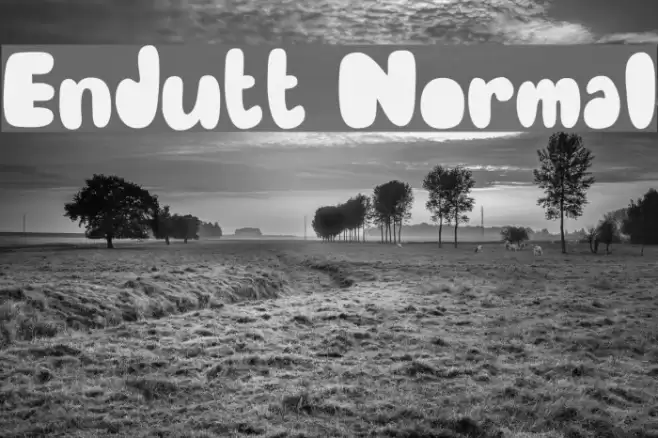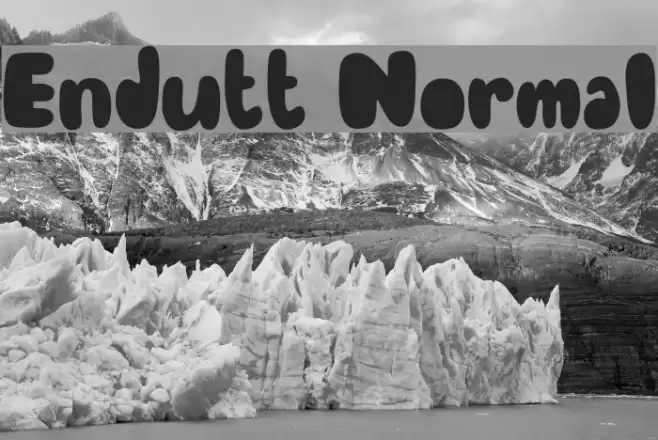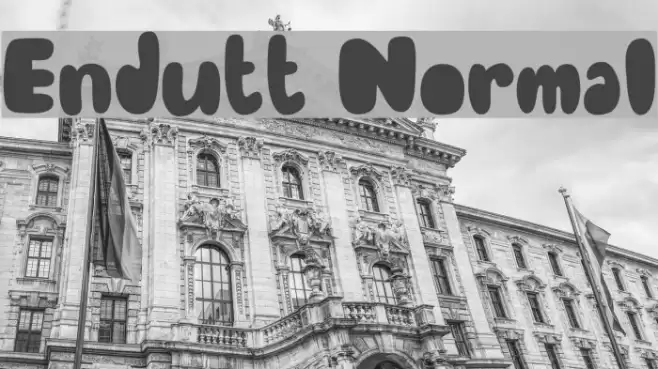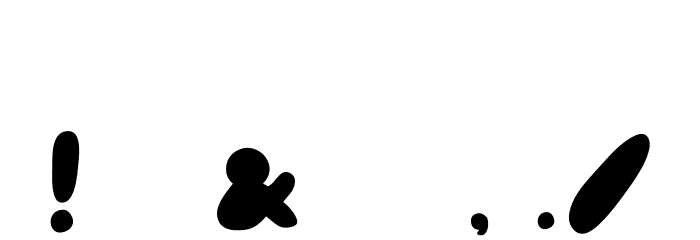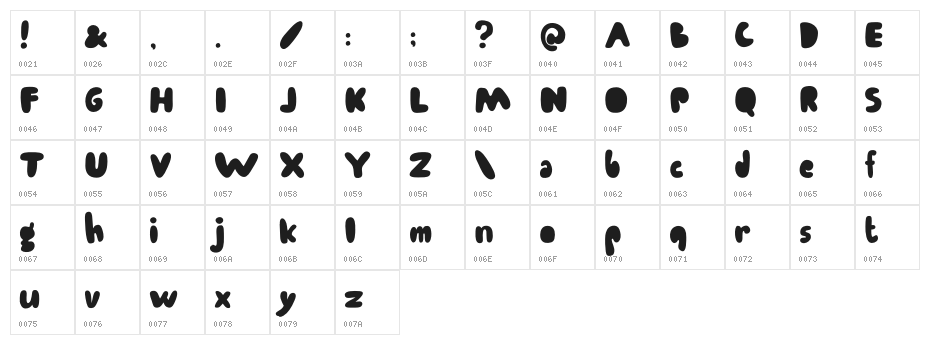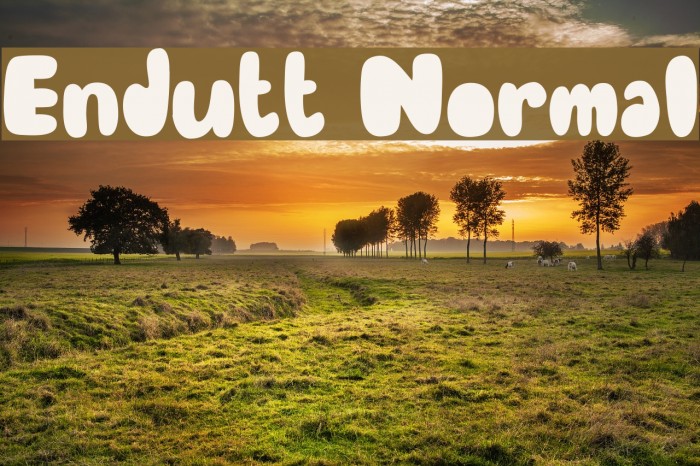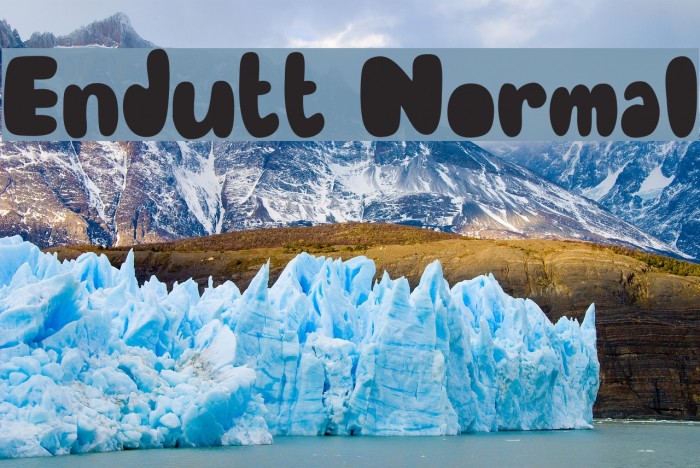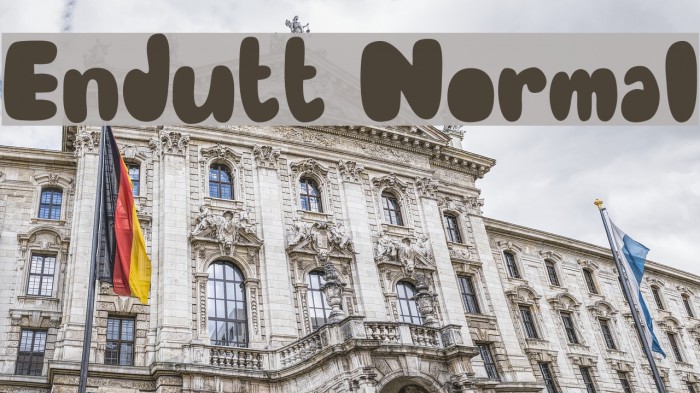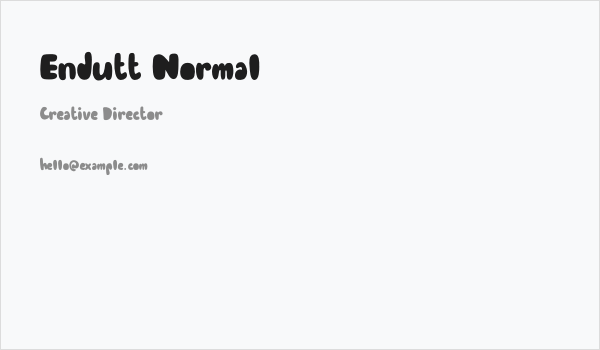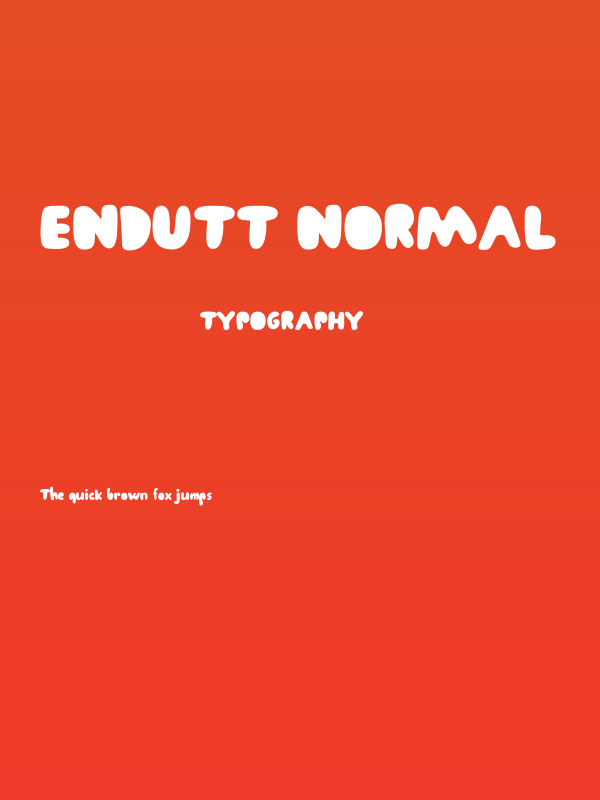
Endutt Normal Font
Endutt Normal Description
This font features bold, rounded characters with a playful and whimsical style. The letters are thick and have a consistent weight throughout, giving them a strong presence. The rounded edges and lack of sharp angles contribute to a friendly and approachable appearance. The uppercase and lowercase letters maintain a uniform style, with the lowercase letters slightly more compact. The special characters, including punctuation marks, follow the same rounded and bold design, ensuring consistency across the font. This font is ideal for projects that require a fun and informal tone.
A bold, rounded font with a playful and whimsical style from Uncategorized fonts.
- Proposed Projects: Ideal for children's books, playful branding, posters, and informal invitations.
- Overall Style: Playful